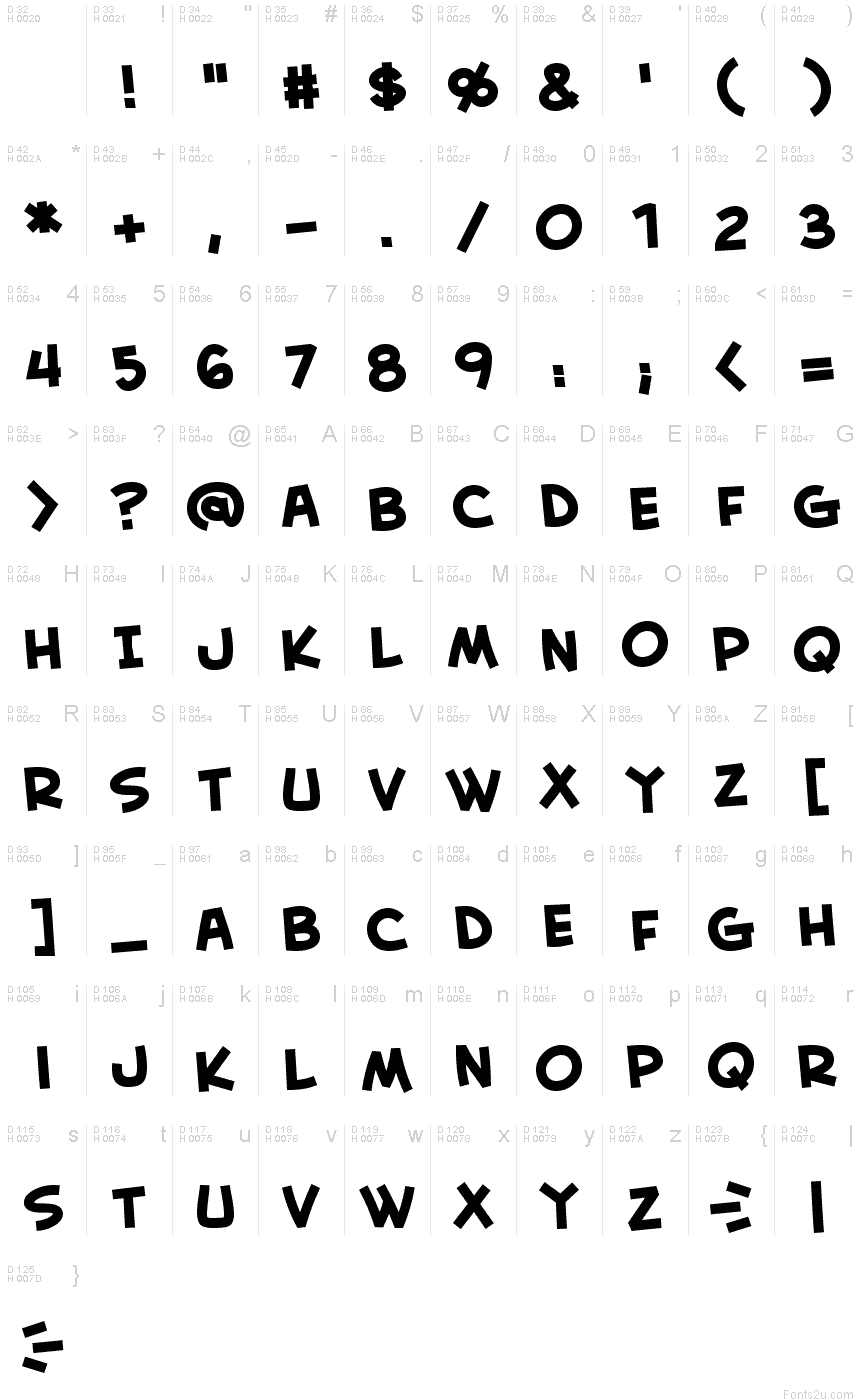
CreativeBlock BB Bold
CreativeBlock BB Bold font by Nate Piekos is a free comic display typeface with big, inky strokes and a bouncy, hand-lettered rhythm. The chunky forms and subtly uneven curves give it that classic Blambot energy-loud, friendly, and easy to read even when the letters are packed tight. As part of the CreativeBlock BB family, it keeps lines feeling punchy and dynamic without getting messy.
This free font shines on comic covers, sound effects, kids’ book titles, posters, gaming overlays, and playful branding. Using CreativeBlock BB Bold at large sizes lets the thick strokes and lively tilt really pop; pair it with a clean, neutral sans serif for small captions or UI text to keep the artwork in the spotlight.